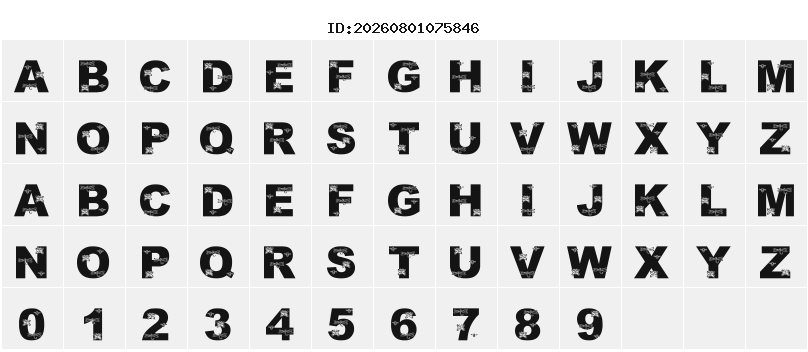
• Font Name: LMS Found In Candice's Garden
LMS Found In Candice's Garden.ttf is a modern, elegant sans-serif font designed for ultimate readability and visual harmony. Perfect for branding, headlines, web design, and print materials.